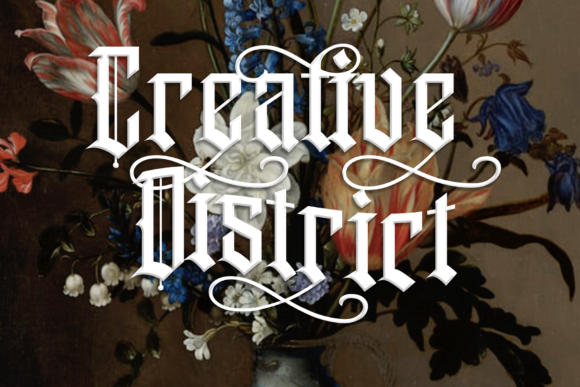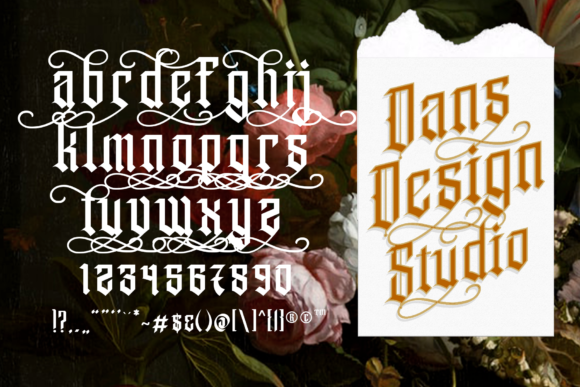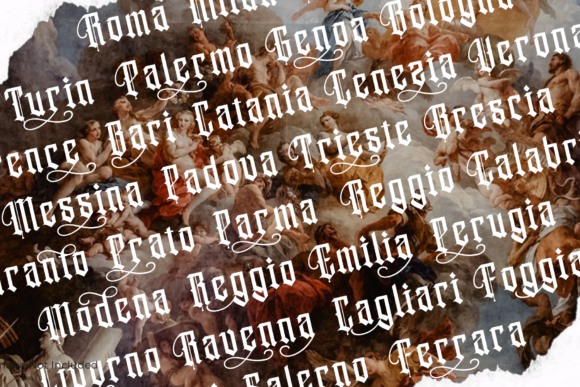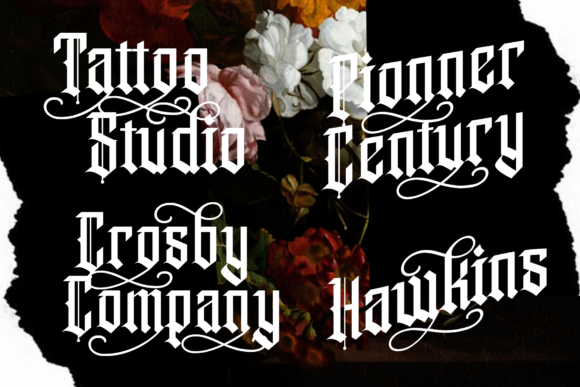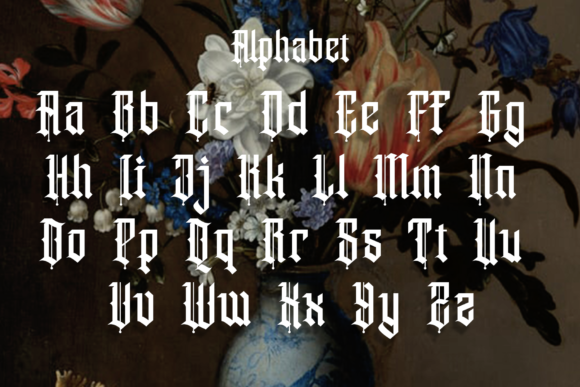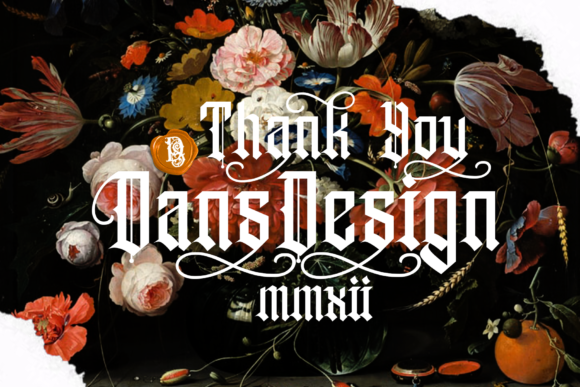
Introducing Artois Font: A Uniquely Designed Gothic Styled Blackletter Font
Are you tired of using the same old fonts for your designs? Do you want to add a touch of uniqueness and elegance to your labels, branding, ads, and other creative projects? Look no further than the Artois Font, a stunning gothic styled blackletter font that is sure to make your designs stand out.
What is Artois Font?
Artois Font is a beautifully crafted font that is inspired by traditional gothic blackletter styles. Its unique design features intricate details and ornate swashes that add a touch of sophistication to any design. The font is perfect for designers and crafters who want to create distinctive and eye-catching designs that reflect their brand’s personality.
Key Features of Artois Font
- Uniquely Designed: Artois Font is a one-of-a-kind font that is designed to help you create unique and memorable designs.
- Gothic Styled Blackletter: The font features a traditional gothic blackletter style with intricate details and ornate swashes.
- Versatile: The font can be used for a variety of design projects, including labels, branding, ads, and more.
Why Choose Artois Font?
There are many reasons why Artois Font is the perfect choice for your design projects. Here are just a few:
- Adds a Touch of Elegance: The font’s unique design and intricate details add a touch of elegance to any design.
- Stand Out from the Crowd: Artois Font is a distinctive font that will help your designs stand out from the crowd.
- High-Quality: The font is designed to high-quality standards, ensuring that it will look great in any design.
How to Use Artois Font
Artois Font is easy to use and can be incorporated into a variety of design projects. Here are a few ideas to get you started:
- Labels: Use Artois Font to create eye-catching labels for your products or packaging.
- Branding: The font is perfect for creating distinctive branding materials, such as logos, business cards, and letterheads.
- Ads: Artois Font can be used to create stunning ads that will grab the attention of your target audience.
- Crafting: The font is also perfect for crafters who want to add a touch of elegance to their projects, such as scrapbooking, card making, and journaling.
Tips and Tricks for Using Artois Font
Here are a few tips and tricks to help you get the most out of Artois Font:
- Experiment with Different Sizes: The font looks great in a variety of sizes, so don’t be afraid to experiment to find the perfect size for your design.
- Pair with Other Fonts: Artois Font can be paired with other fonts to create a unique and interesting design.
- Use Swashes and Glyphs: The font’s swashes and glyphs can be used to add a touch of elegance and sophistication to your design.
Artois Font is a uniquely designed and gothic styled blackletter font that is perfect for designers and crafters who want to add a touch of elegance and sophistication to their designs. With its PUA encoding, intricate details, and ornate swashes, this font is sure to make your designs stand out. Whether you’re creating labels, branding materials, ads, or crafting projects, Artois Font is the perfect choice.